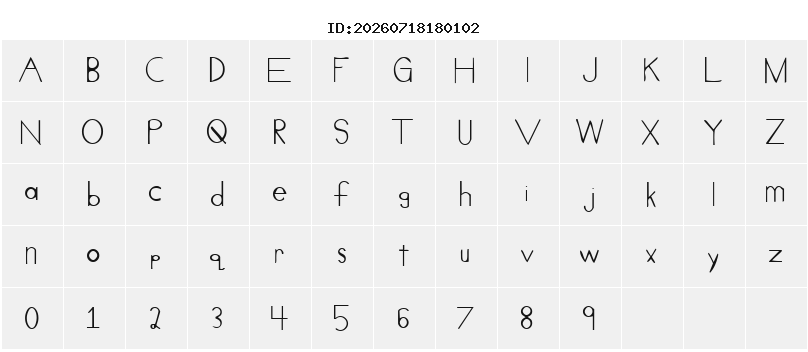
Cueue Preview
• Font Name: Cueue
• Font Style: Cheesy
• Full Font Name: Cueue Cheesy
About Cueue.ttf
Cueue.ttf is a modern, elegant sans-serif font designed for ultimate readability and visual harmony. Perfect for branding, headlines, web design, and print materials.